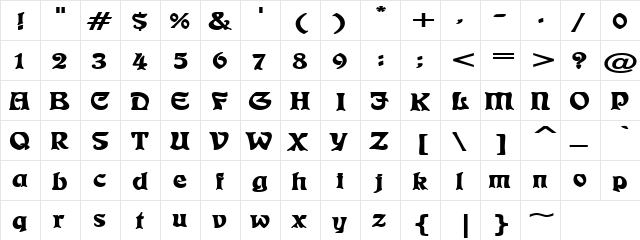
Finishing Line Regular
Design Context for Finishing Line Typeface
Finishing Line is a composed and adaptable typeface that performs quietly and consistently across a wide range of design contexts.